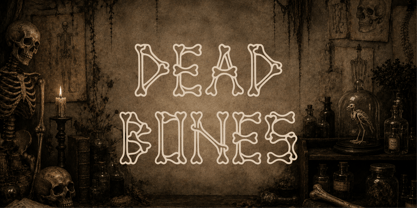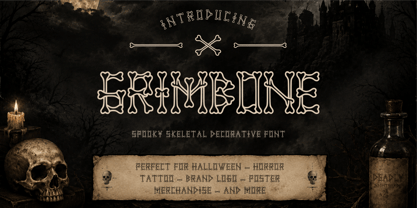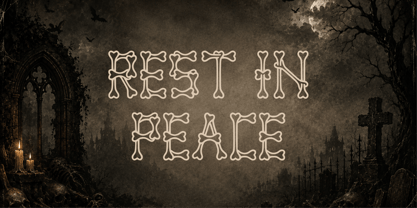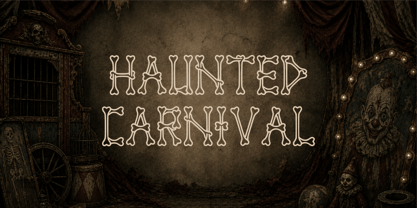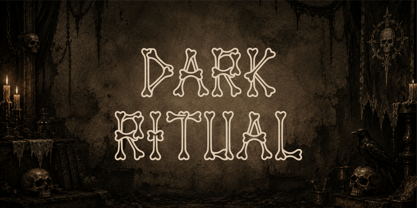
Grimbone
by Arif Novianto
The Grimbone Font Family was designed by Arif Novianto and published by Arif Novianto. Grimbone contains 1 styles. More about this family
GRIMBONE — Spooky Skeletal Decorative Font
GRIMBONE is a dark and haunting decorative typeface inspired by skeletal forms, gothic folklore, ancient bones, and eerie Halloween aesthetics. Its intricate letterforms feature bone-like contours, twisted details, and ornamental shapes that create a mysterious and sinister visual character.
Perfect for Halloween artwork, horror posters, gothic branding, haunted house designs, album covers, apparel, tattoos, packaging, invitations, merchandise, and other dark-themed creative projects.
GRIMBONE brings an unforgettable skeletal personality to every word—strange, eerie, decorative, and unmistakably gothic